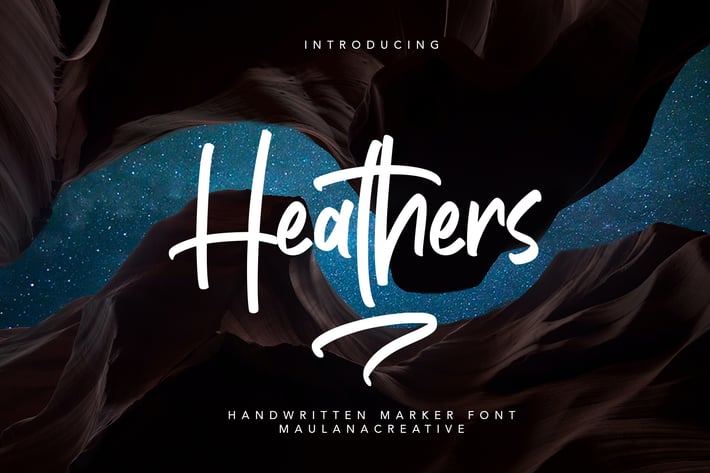
Heathers Handwritten Brush Font
Give your designs an authentic brush handcrafted feel. Heathers is perfectly suited to signature, stationery, logo, typography quotes, magazine or book cover, website header, flyer, clothing, branding, packaging design and more.